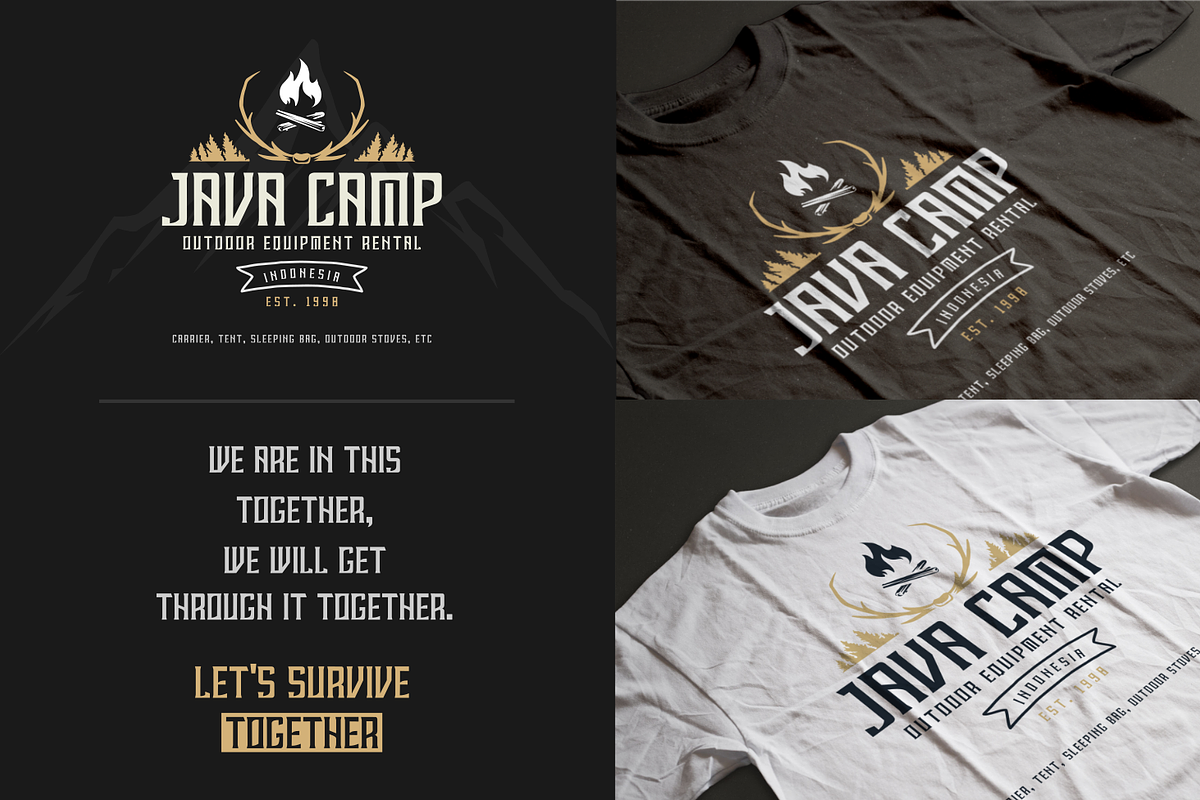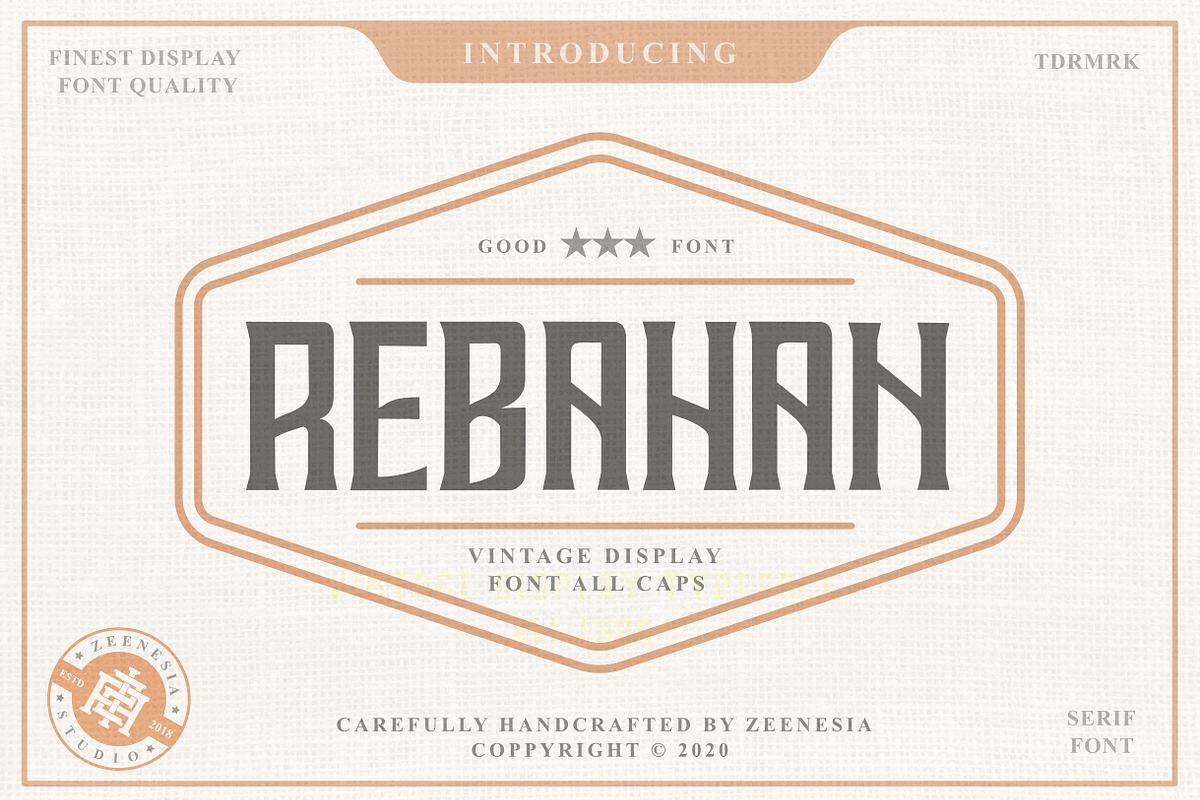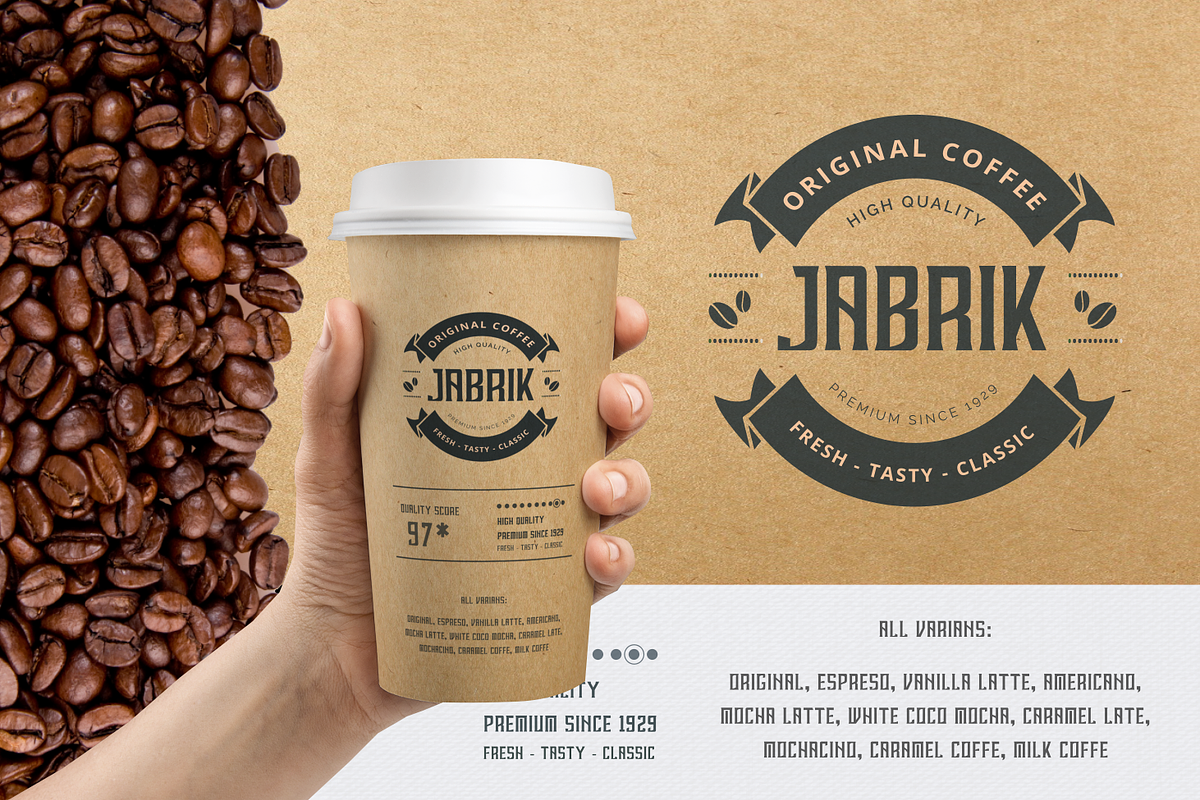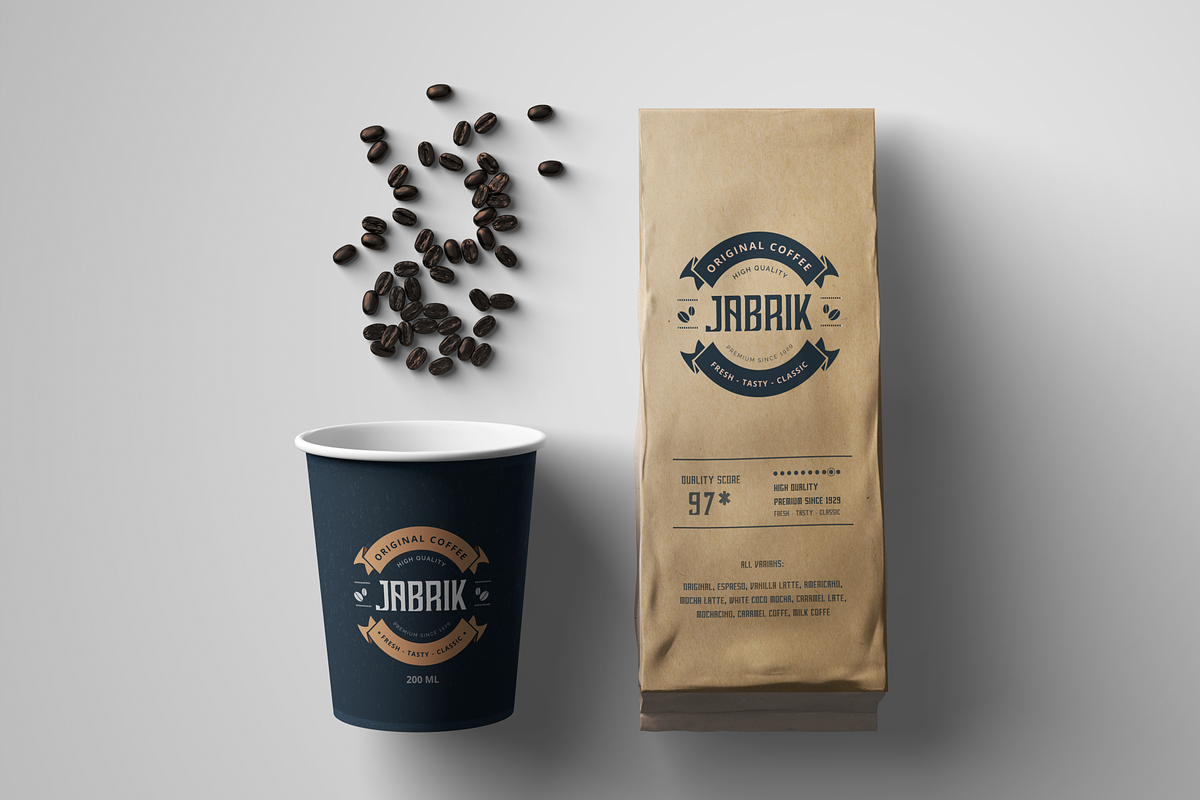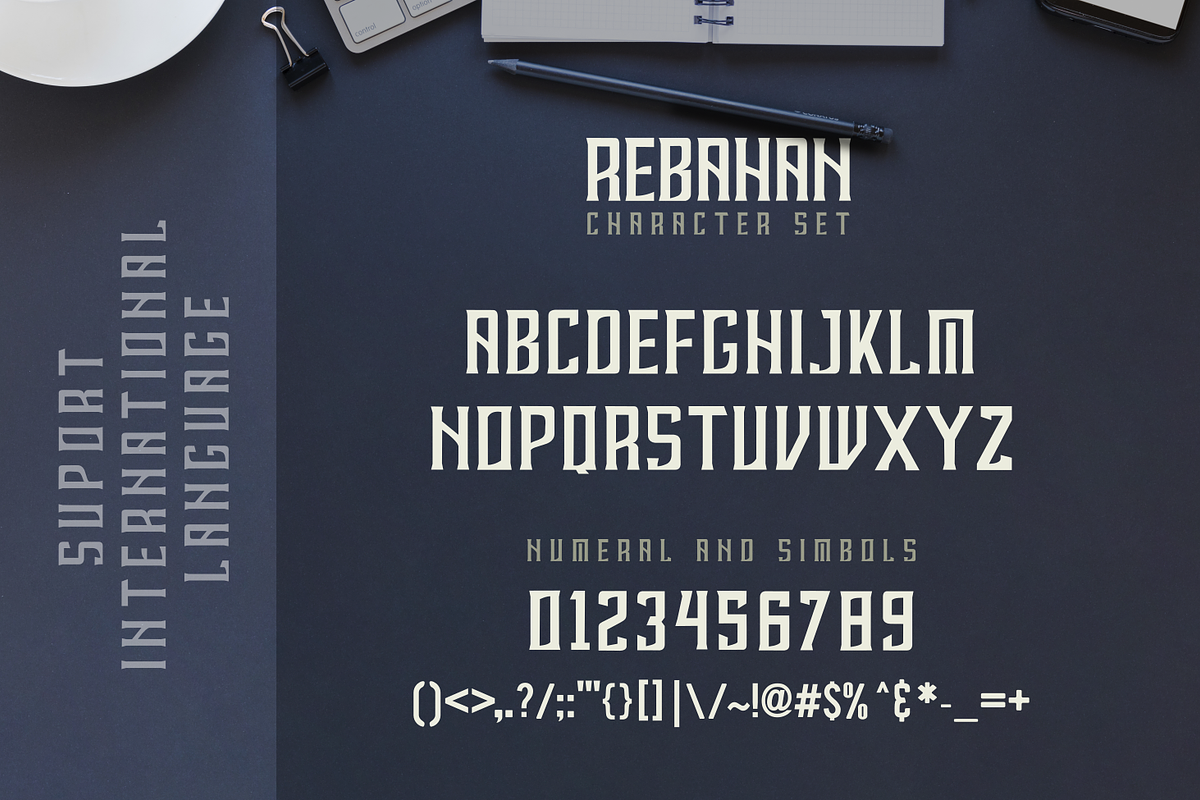
REBAHAN - Vintage Display Font
The Rebahan, A vintage style font for your awesome next project! This font created for straight forward text in big display but also good and readable in smaller paragraph size. Best suitable for branding, packaging, posters, wall sign, print titles, tshirt design, ads, and similar projects. No lower case included in this first pack but might be added in the next update Hope you like this all caps font!. If you find any bug or issue using this font please let me know, i'll work on it as fast as i can.